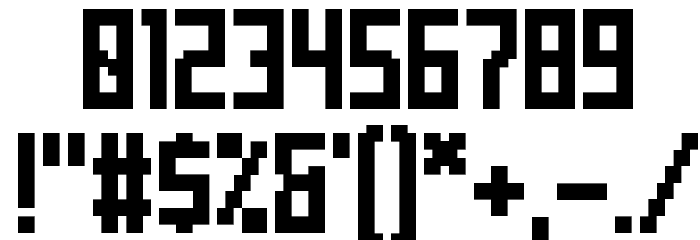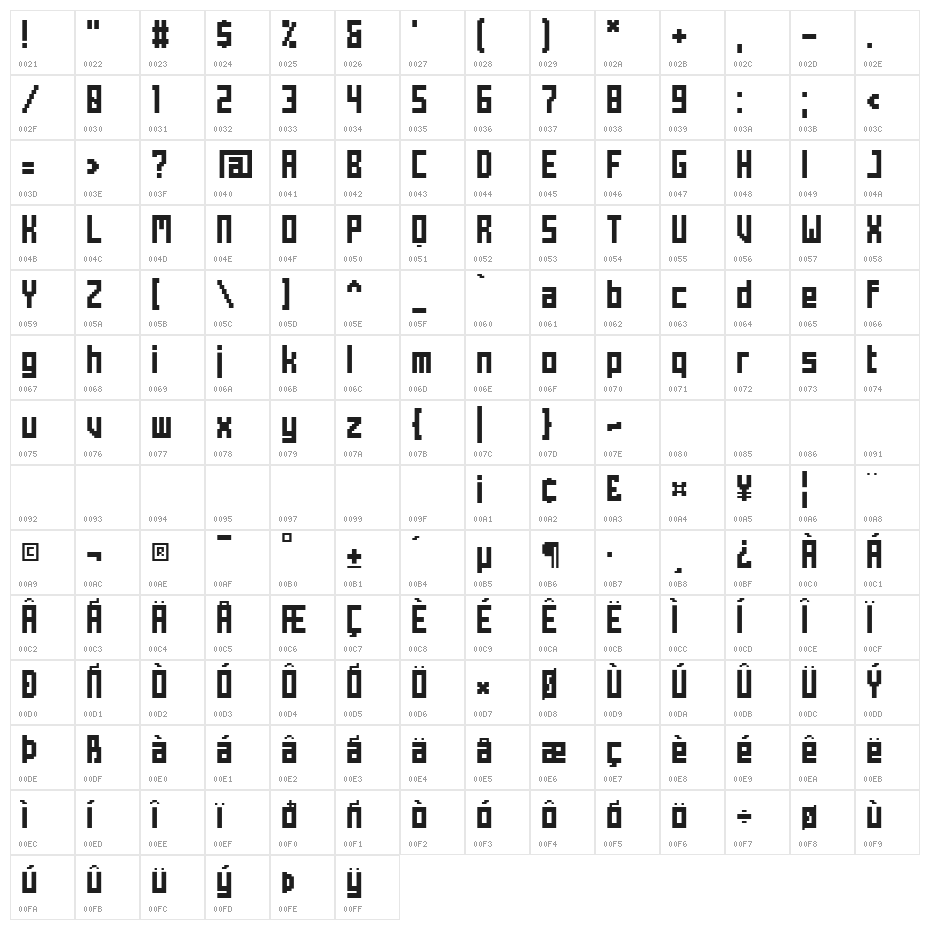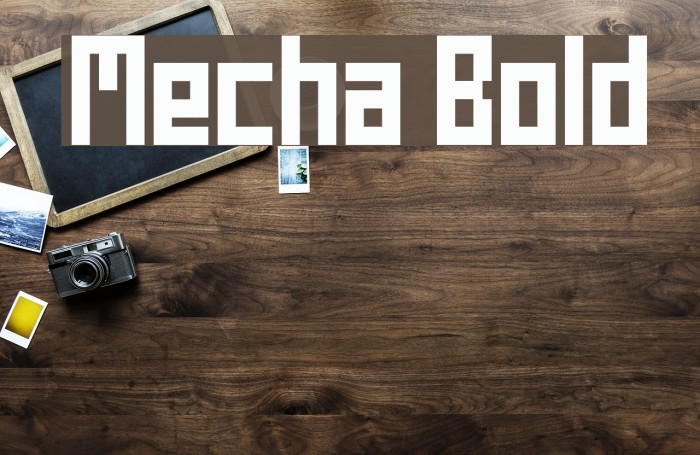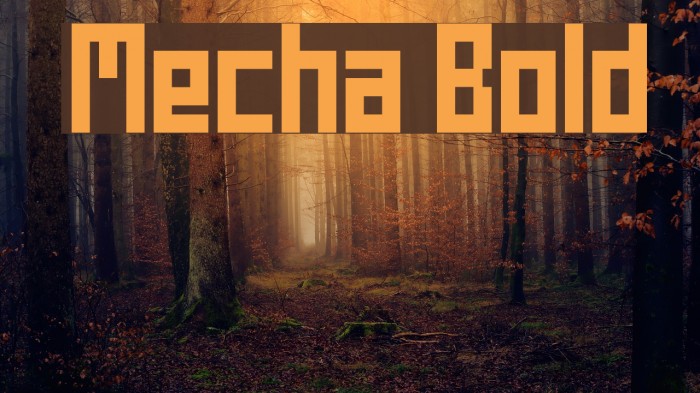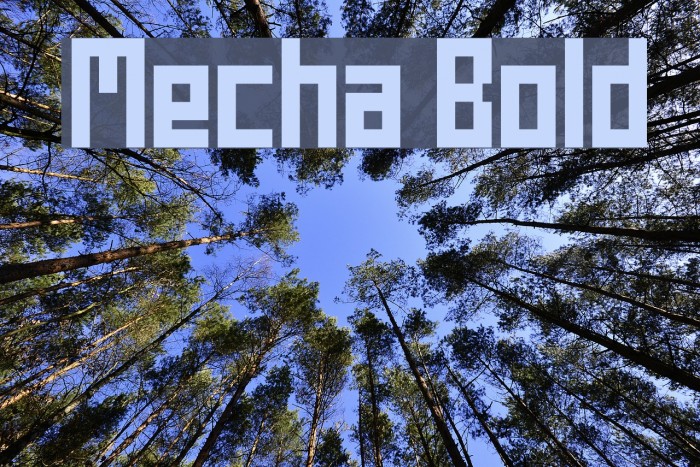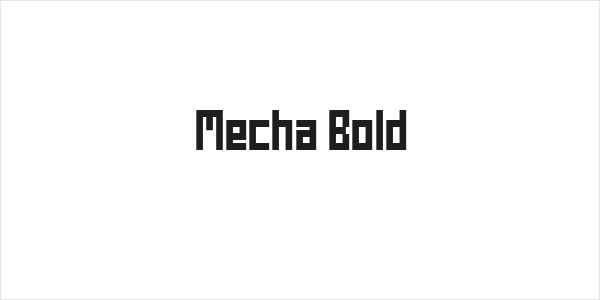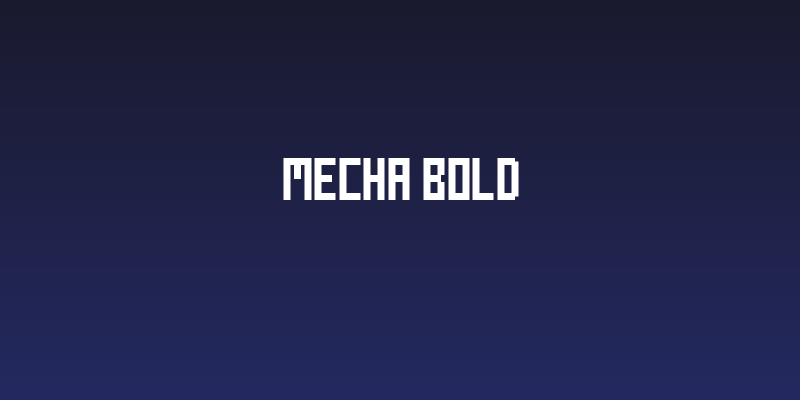
Mecha Bold Font
Mecha Bold Description
This font features a bold, geometric design with a distinctly mechanical and futuristic aesthetic. The characters are constructed with sharp, angular lines and a blocky structure, giving it a strong and impactful presence. The uppercase and lowercase letters maintain a consistent width, contributing to a uniform appearance. The numbers and special characters follow the same design principles, ensuring cohesion throughout. The overall style is reminiscent of digital or robotic themes, making it suitable for projects that require a modern and tech-oriented look.
Proposed ProjectsIdeal for technology branding, video game titles, sci-fi posters, and digital interfaces.